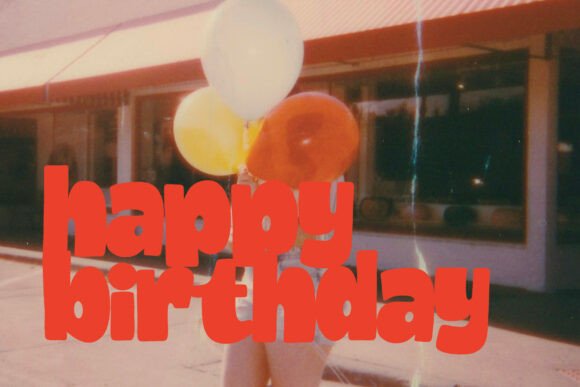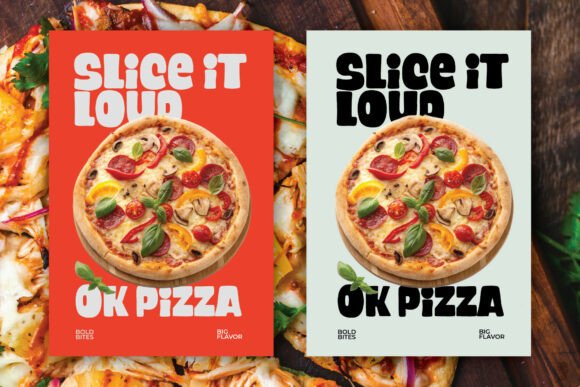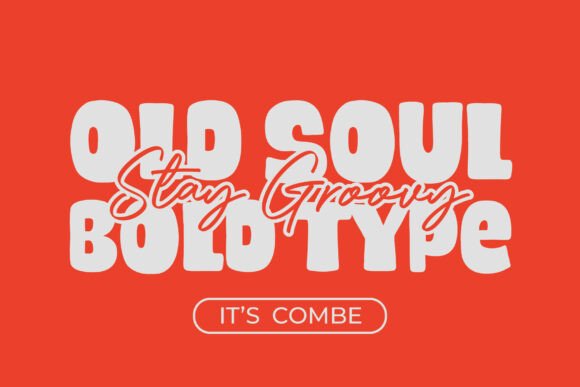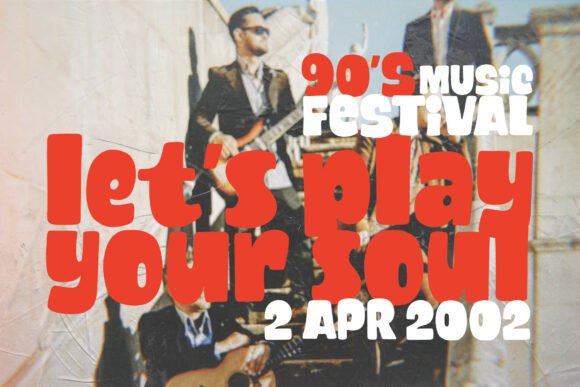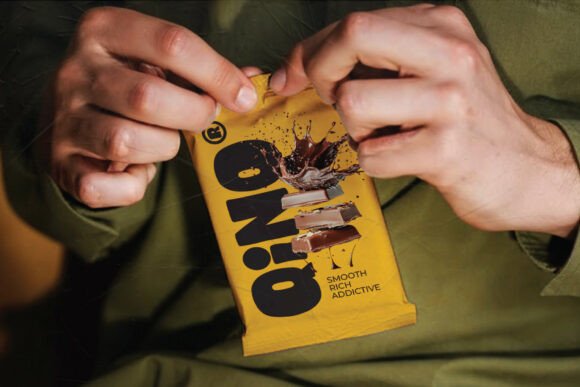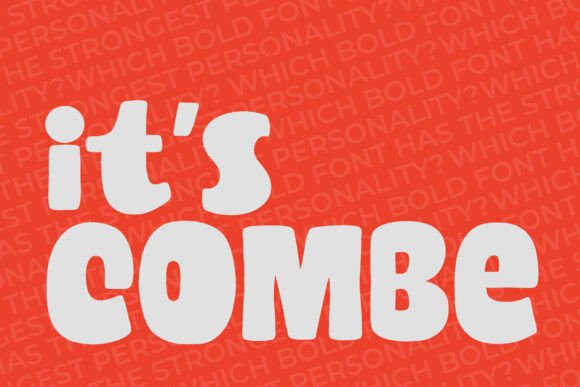
Introducing Proske Drawn – The Ultimate Funky Typeface for Bold Designs
Are you tired of using the same old fonts in your designs? Do you want to add a touch of energy and playfulness to your creations? Look no further than Proske Drawn, the bold and funky typeface that’s sure to take your designs to the next level. With its irregular shapes and chunky letterforms, Proske Drawn delivers a strong visual impact that instantly grabs attention.
What Makes Proske Drawn So Special?
Proske Drawn is more than just a font – it’s a statement piece. Its bold and playful design makes it perfect for creating eye-catching headlines, titles, and slogans. The font’s irregular shapes and chunky letterforms give it a unique and quirky feel that’s sure to set your designs apart from the rest.
Key Features of Proske Drawn
- Uppercase & Lowercase: Proske Drawn includes both uppercase and lowercase letters, giving you the flexibility to create a wide range of designs.
- Numbers & Punctuation: The font also includes numbers and punctuation marks, making it a complete and versatile typeface.
- Ligature: Proske Drawn features ligatures, which allow you to create smooth and flowing text that’s easy on the eyes.
- Alternative: The font includes alternative characters, giving you even more creative freedom to experiment with different looks and styles.
Design Possibilities with Proske Drawn
With Proske Drawn, the design possibilities are endless. Here are just a few ideas to get you started:
- Bold Headlines: Use Proske Drawn to create eye-catching headlines that grab attention and make a statement.
- Playful Logos: The font’s playful and quirky feel makes it perfect for creating fun and memorable logos.
- Creative Posters: Proske Drawn is ideal for creating bold and eye-catching posters that stand out from the crowd.
- Funky Social Media Graphics: Use the font to create fun and engaging social media graphics that showcase your brand’s personality.
Why Choose Proske Drawn?
So why choose Proske Drawn over other fonts? Here are just a few reasons:
- Unique Design: Proske Drawn’s bold and playful design makes it truly unique and eye-catching.
- Versatility: The font’s versatility makes it suitable for a wide range of design projects, from bold headlines to playful logos.
| Font Name | Combe Font |
| Author | Lettermine |
In conclusion, Proske Drawn is the perfect font for designers who want to add a touch of energy and playfulness to their creations. With its bold and quirky design, this font is sure to make a statement and grab attention. Whether you’re creating bold headlines, playful logos, or funky social media graphics, Proske Drawn is the ultimate funky typeface for bold designs.